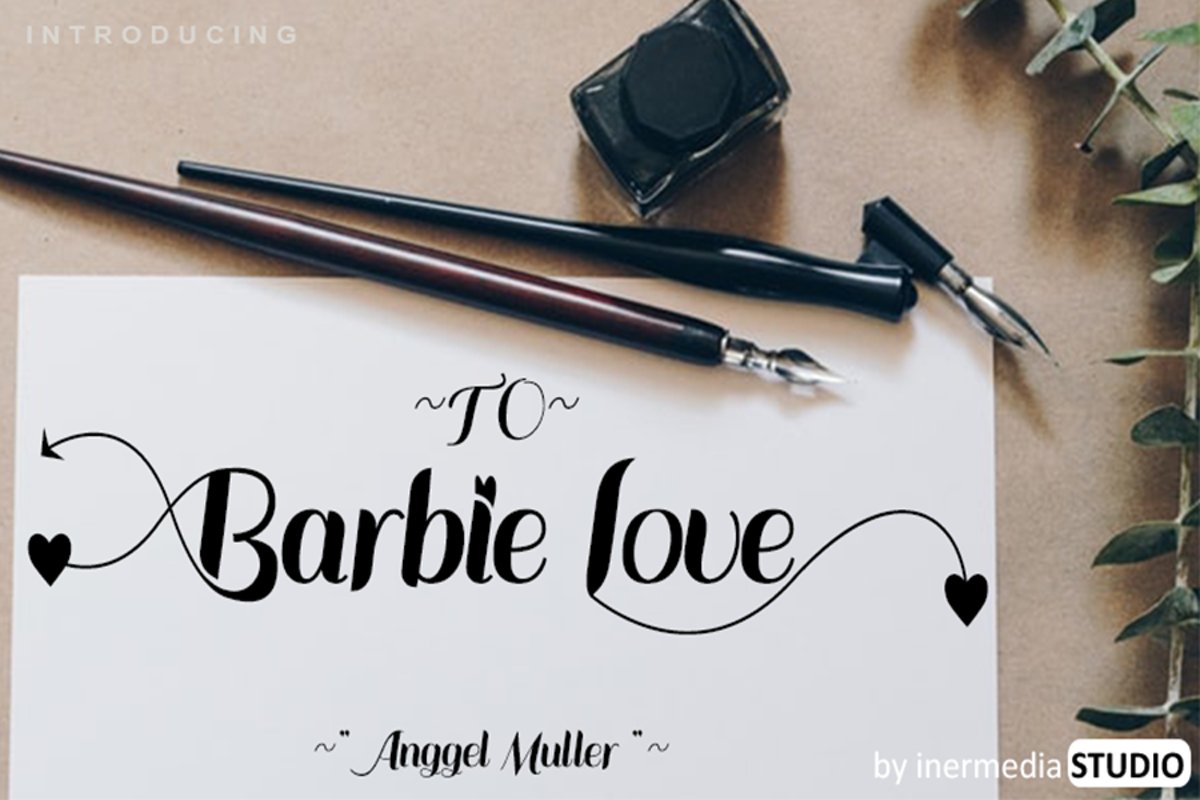
Barbie Love
Barbie Love is a gorgeous script font that brings its own unique style to any design project. It will elevate a wide range of design projects to the highest level, be it branding, headings, wedding designs, invitations, signatures, logos, labels, and much more!